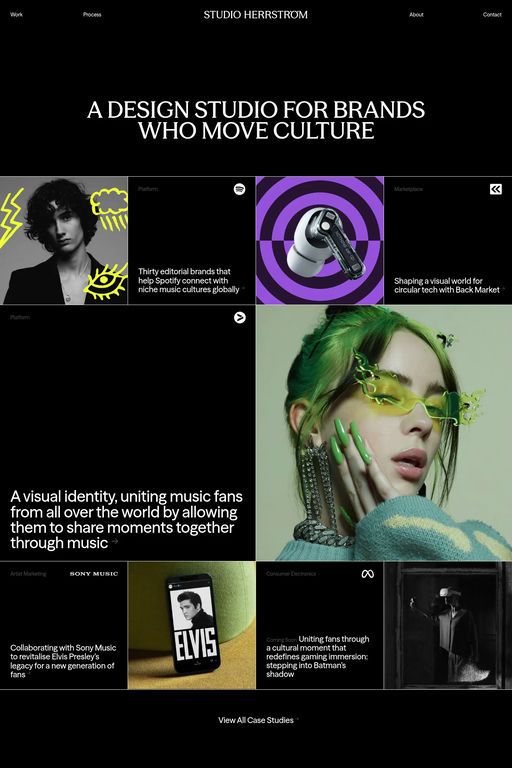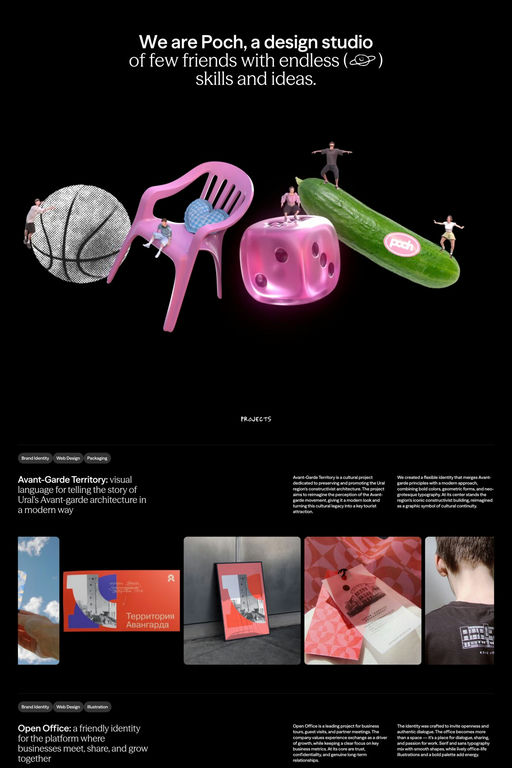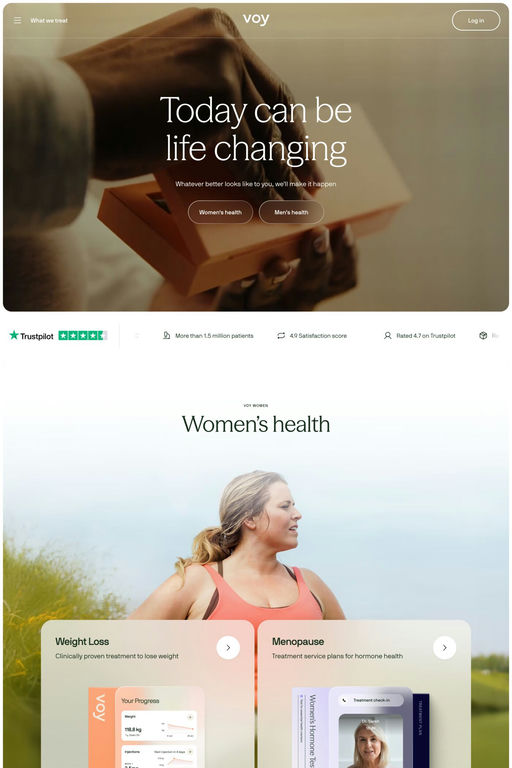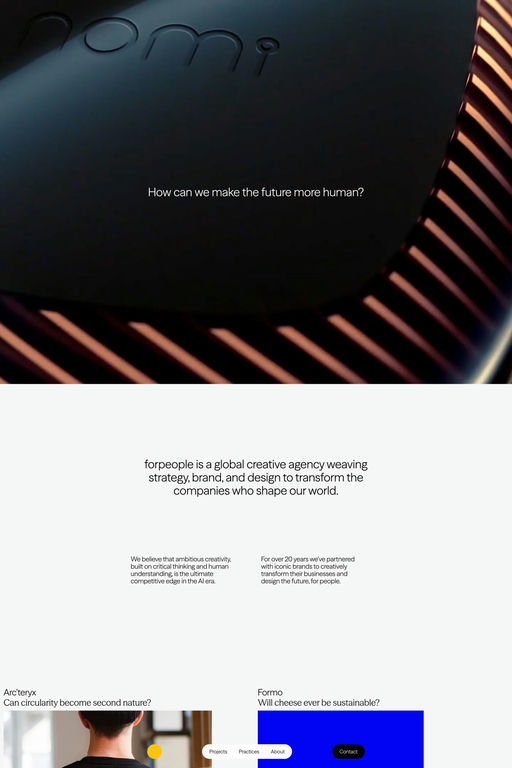
Season Mix is a display typeface from Displaay Type Foundry.
The exploration of the transformation from sans to serif (or serif to sans) and the stages in between is at the heart of our Season typeface. Just as you enjoy the changing seasons, we hope you’ll appreciate each phase of Season. With the variable font format, you can experience even more stages in this dynamic sans-to-serif collection.